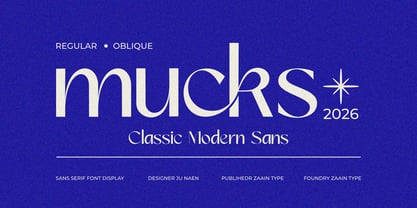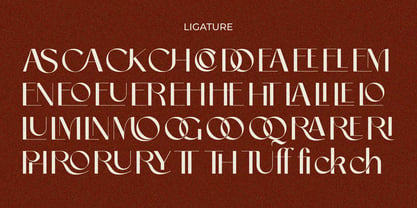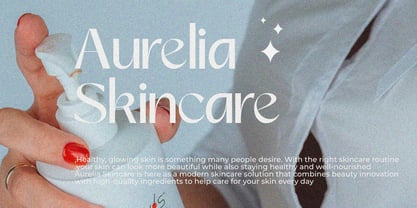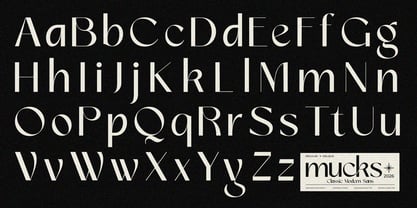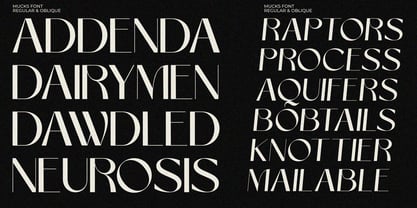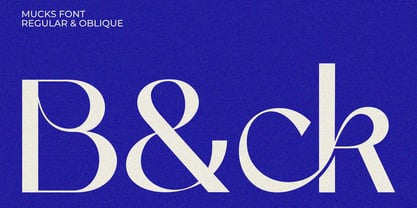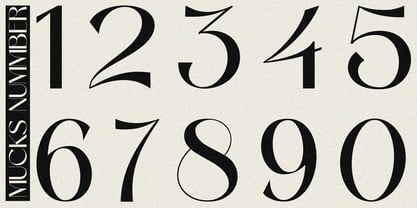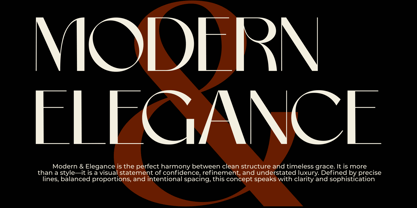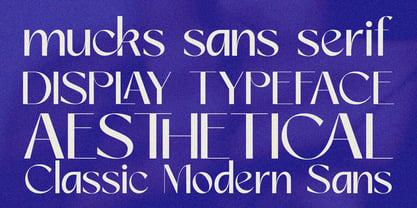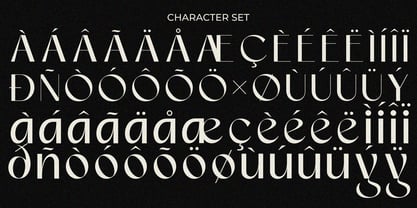
Mucks
by Zaain Type
The Mucks Font Family was designed by Ju Naen and published by Zaain Type. Mucks contains 2 styles and family package options. More about this family
Mucks is a modern sans serif font designed with a bold, clean, and highly readable character. Its letterforms are simple yet feature subtle unique details in their curves and proportions, giving it a strong, minimalistic, and contemporary feel. The Mucks font is suitable for various design needs such as logos, branding, posters, and digital displays because of its clear and professional appearance. With a balance between simplicity and character, Mucks delivers a strong visual identity without looking excessive